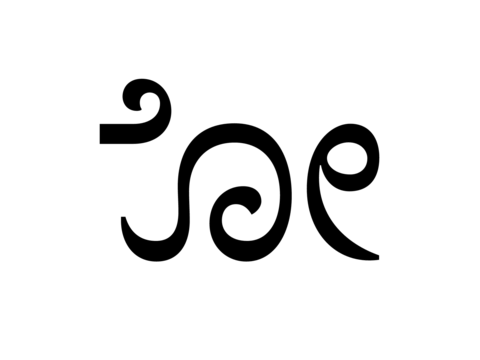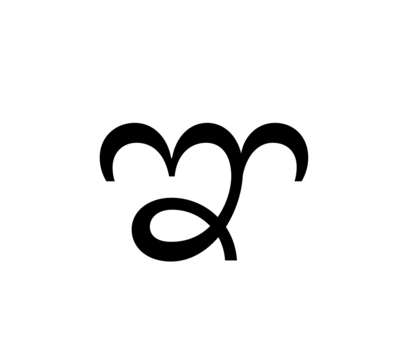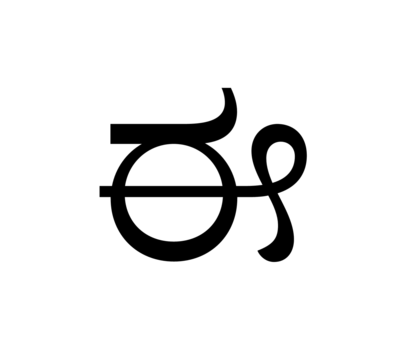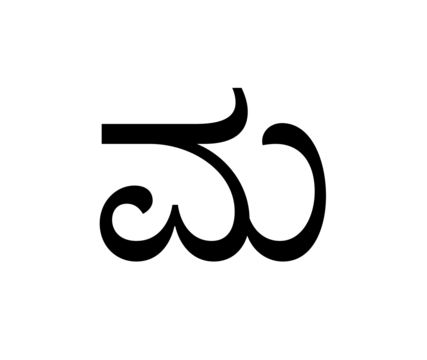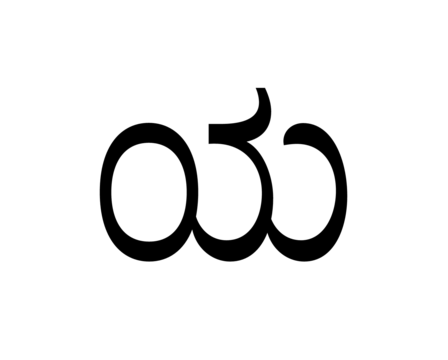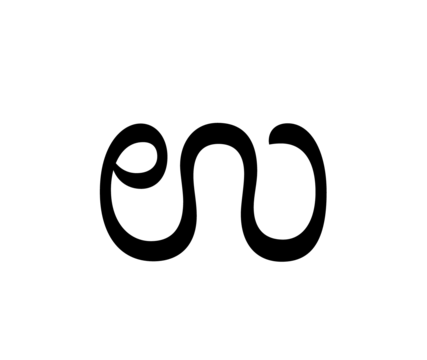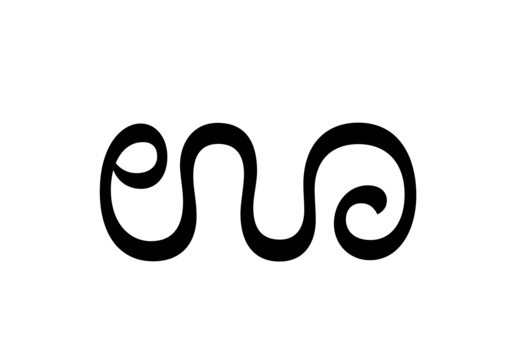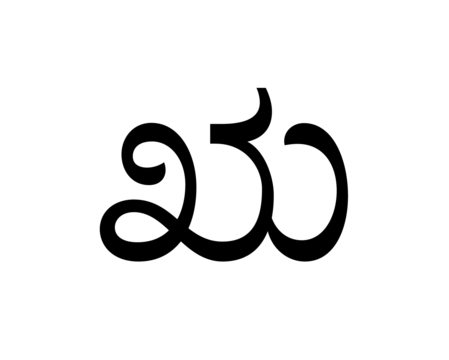
Traditionally, printed Kannada letterforms feature a distinctive amount of stroke contrast. This contrast is vertical; horizontal stokes along the top and bottom portions of each character are rendered heavier than vertical strokes. The Belur Kannda fonts incorporate this strongly-calligraphic feeling. Tetterform details have been refined for use in small sizes, with appropriate optical corrections and subtle ink-traps. The Kannada script employs many below-the-base forms, which create complex conjuncts and require loose vertical metrics settings. Many of the conjunct forms in Belur Kannda have been simplified, in order for them to require less space below the baseline, allowing for more lines of text per text block. Thank to the Kannada script’s stroke contrast, the characters in Belur Kannda’s five weights are relatively close to one another in width. And what does the name mean? Belur is a city in the Indian state of Karnataka. Belur Kannada was designed in Ahmedabad by ITF co-founder Satya Rajpurohit.
Family Name Belur Kannada
Designer(s) Satya Rajpurohit
Available Style Light, Regular, Medium, Semibold, Bold